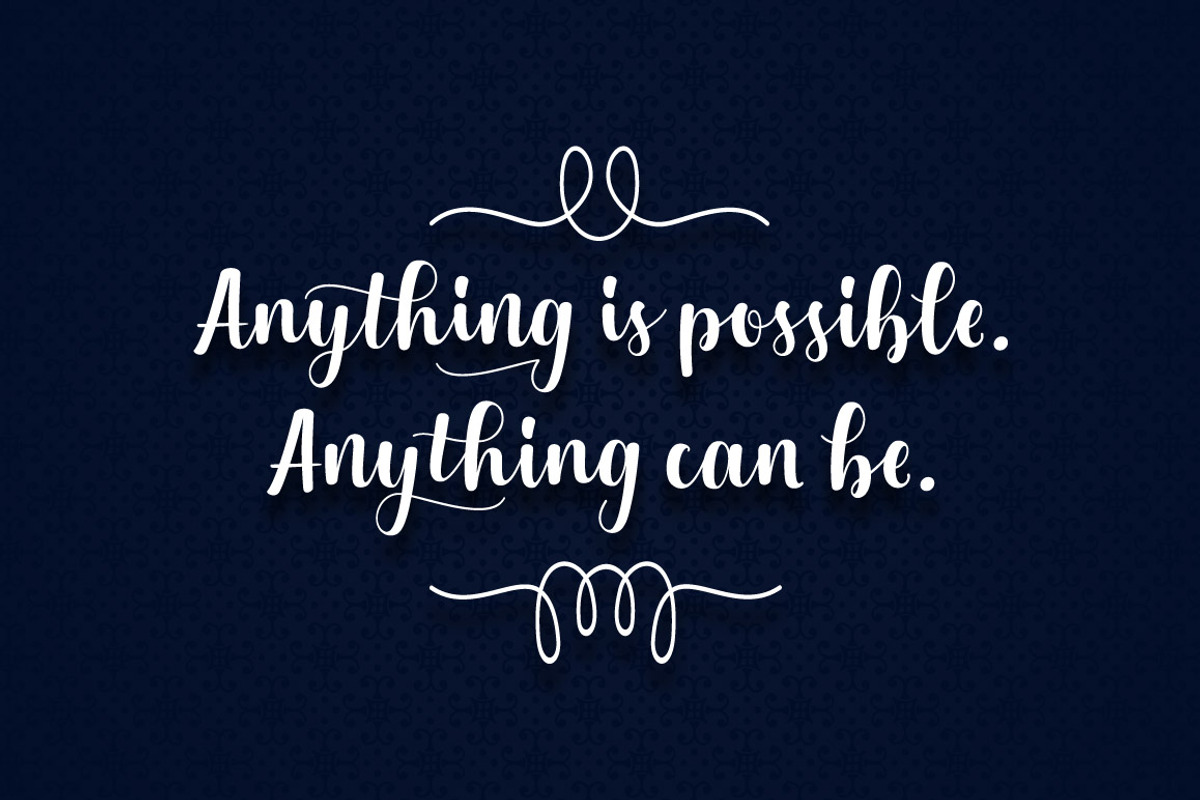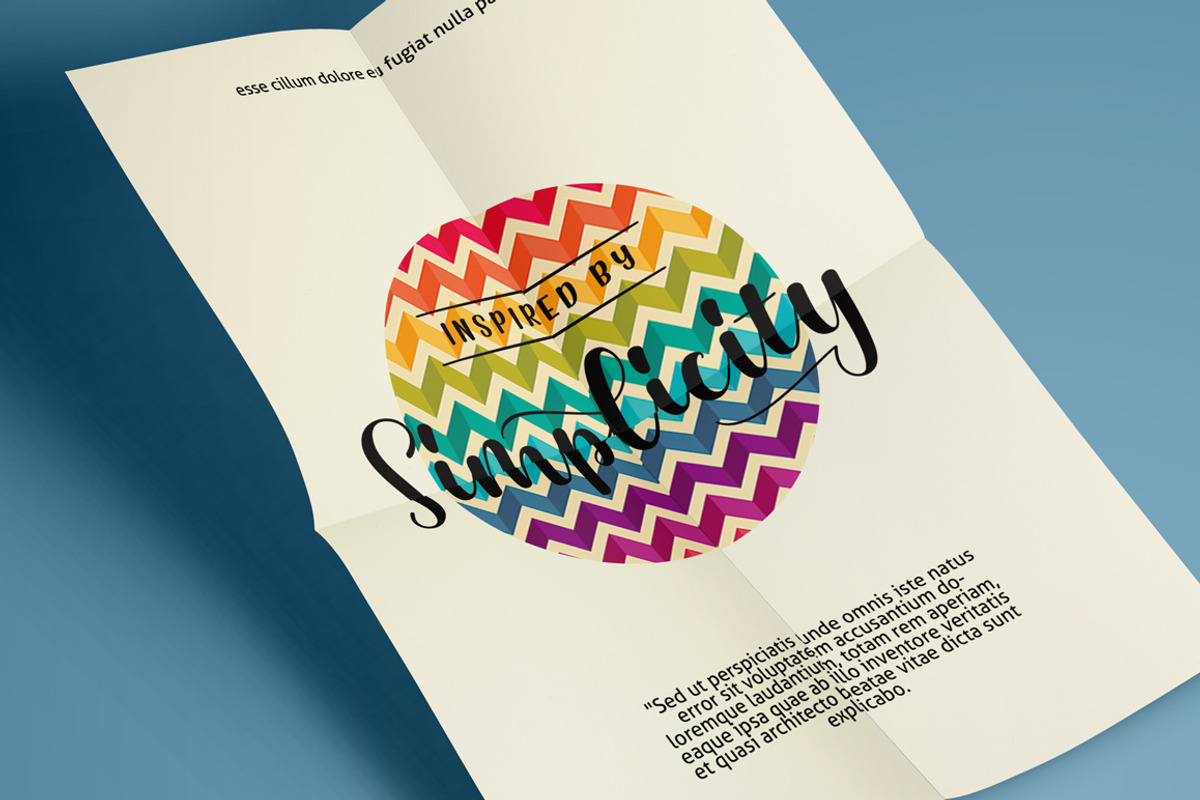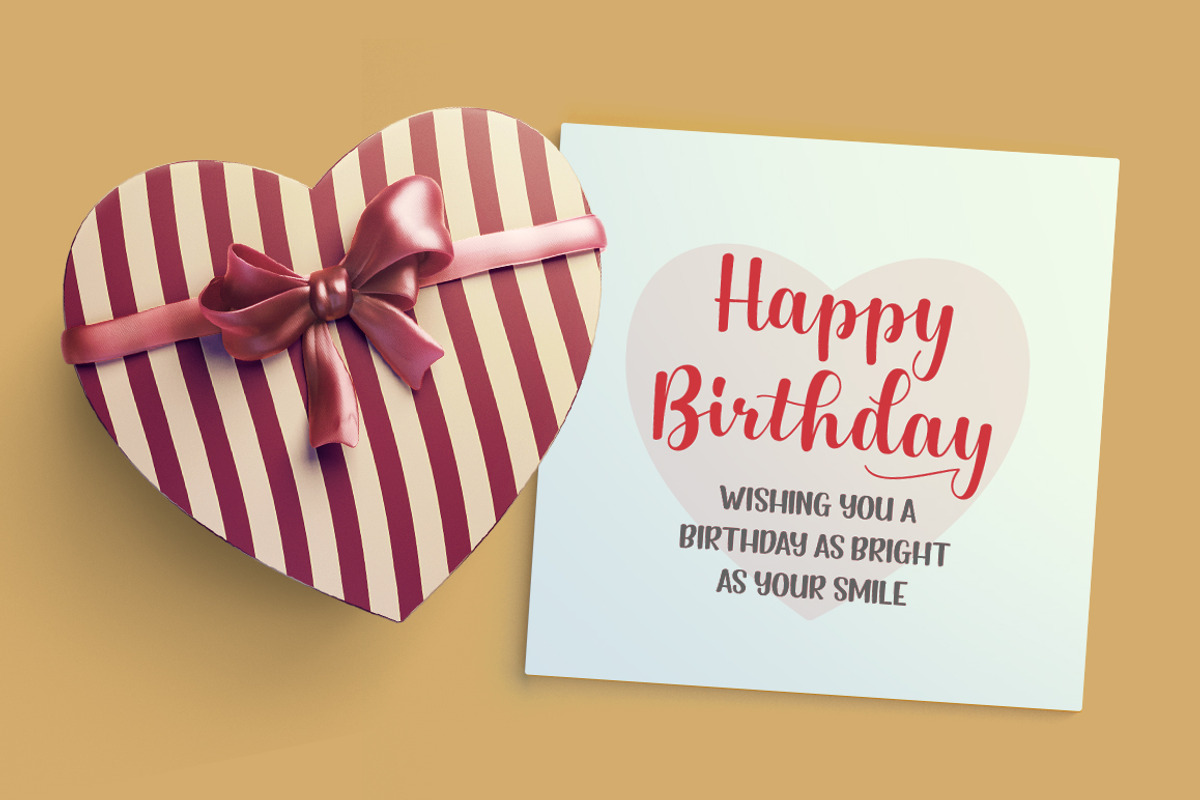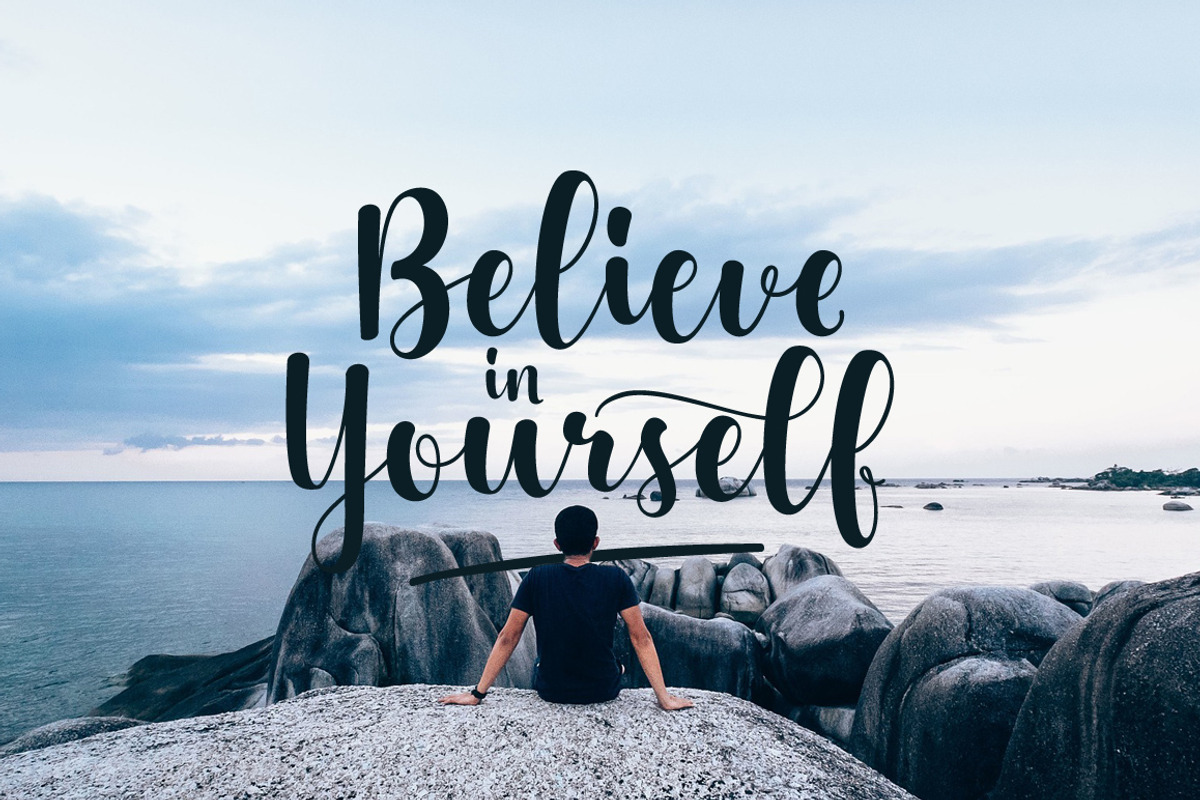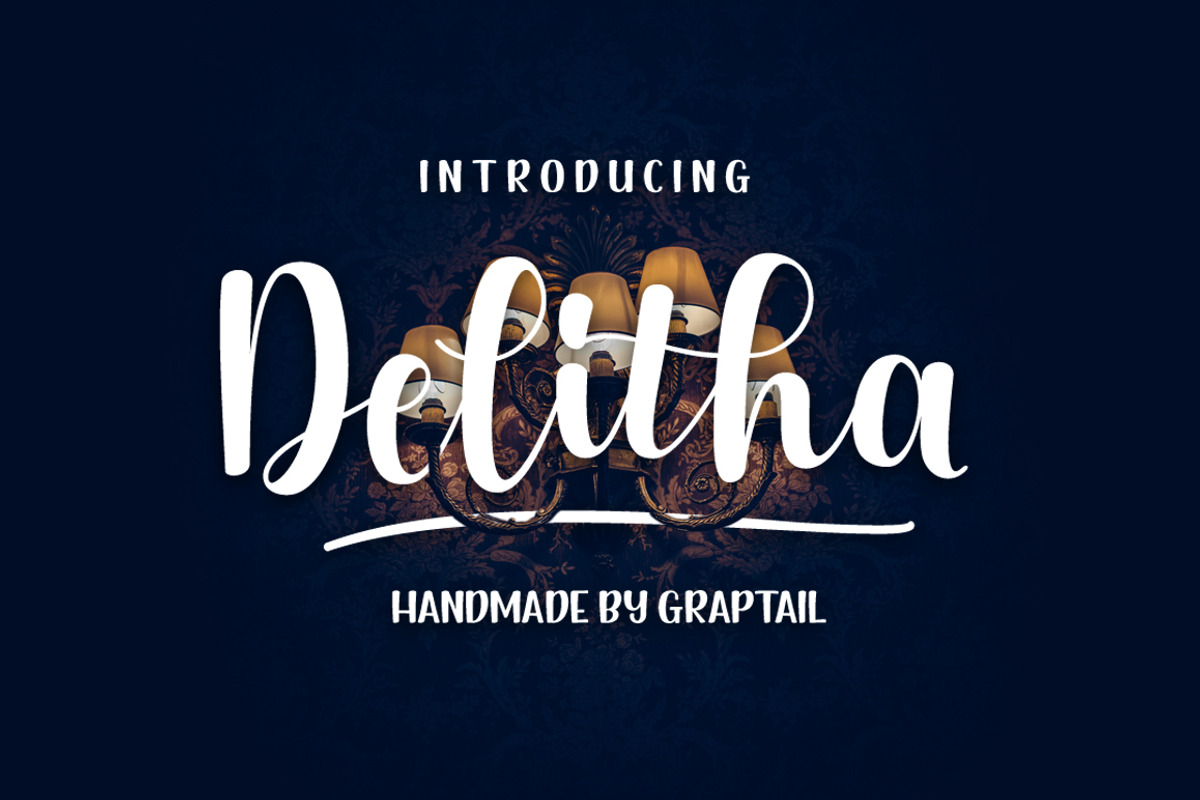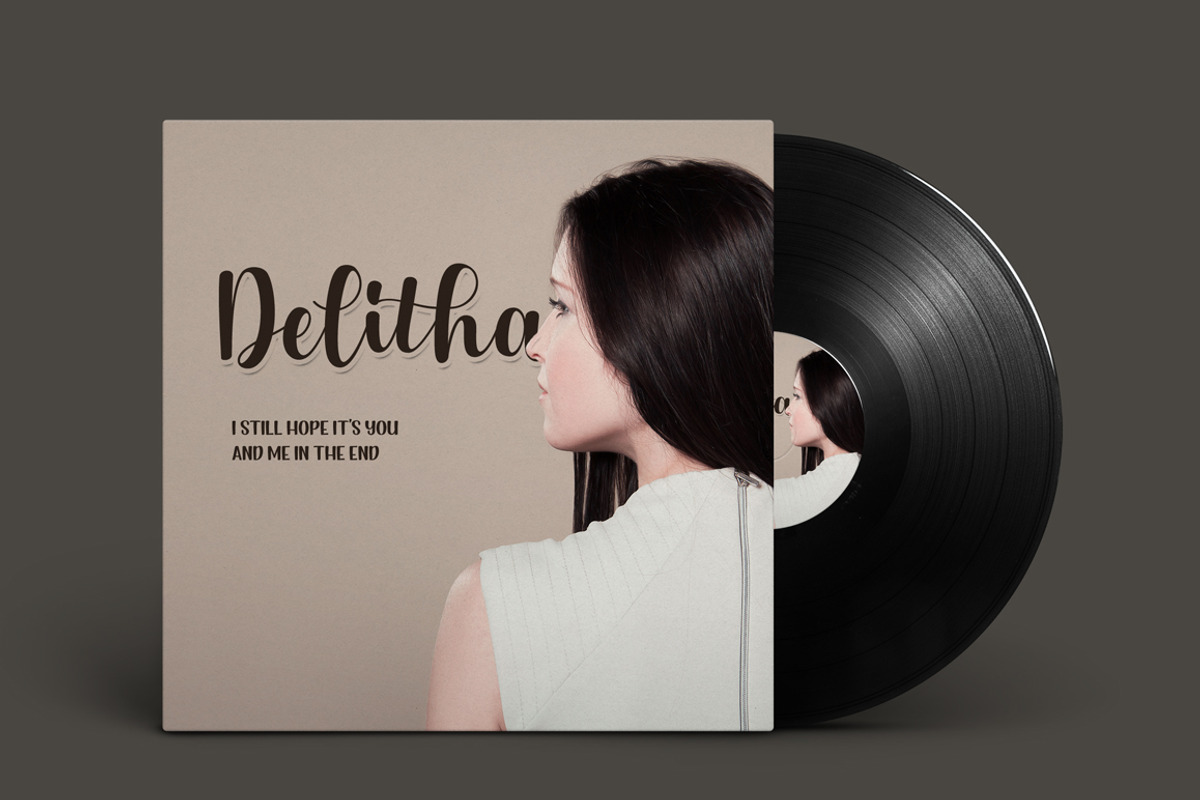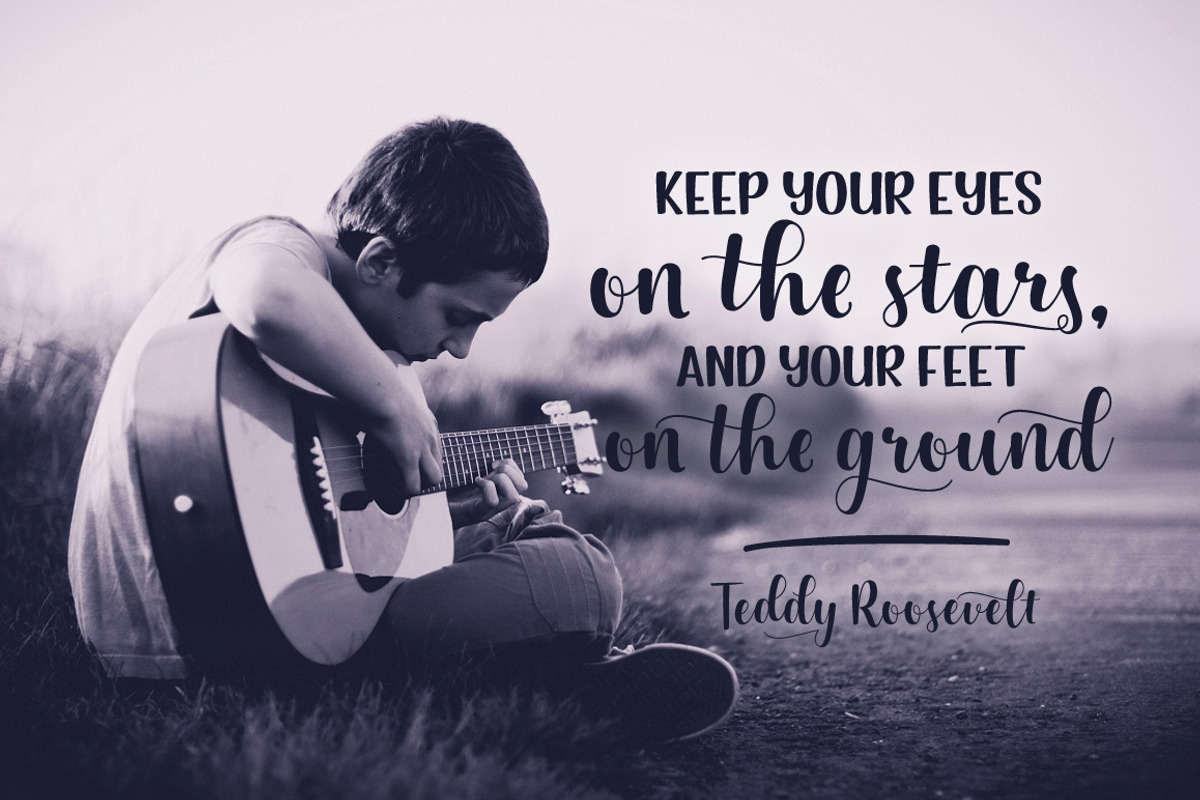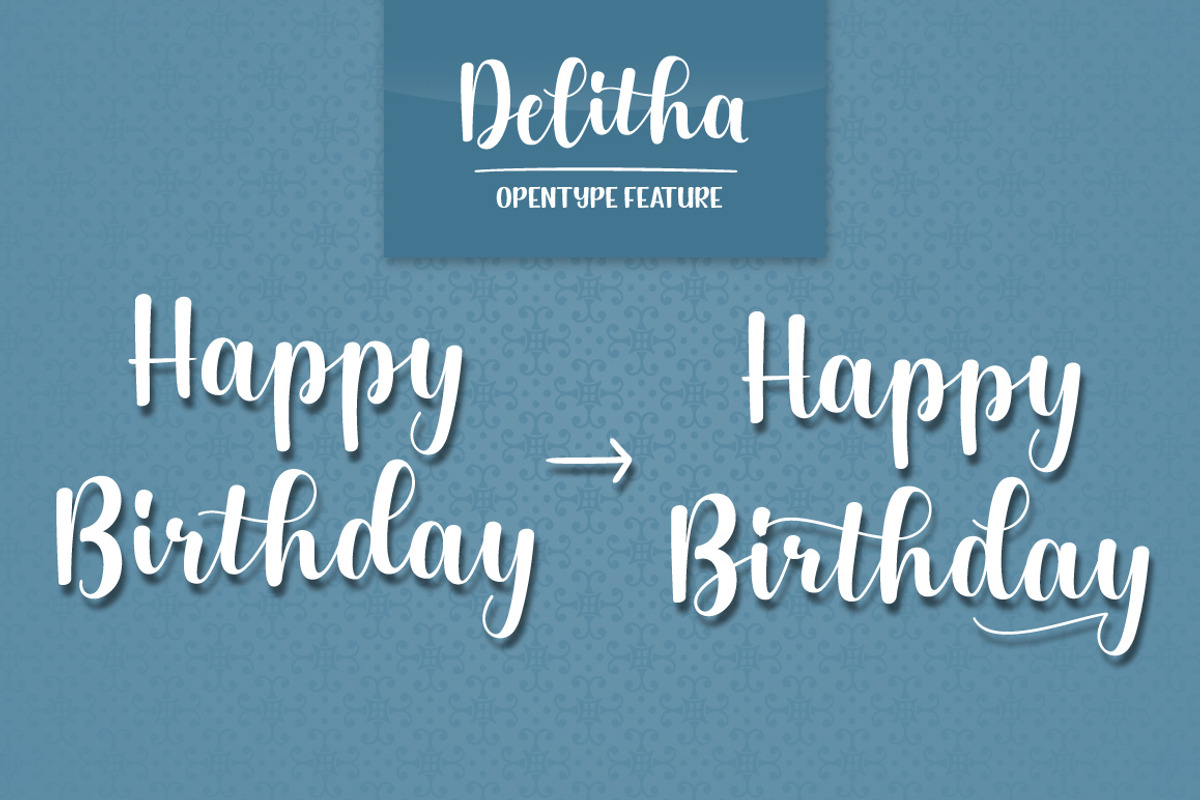
Delitha Font
Delitha Font by Graptail is a font selected for branding, posters, packaging, typography.
- After careful evaluation of the connections between characters, intelligent standards have been established for use of the OpenType feature,
Why Delitha Font is worth a look
Delitha Font by Graptail fits naturally into Branding, posters, packaging, typography.